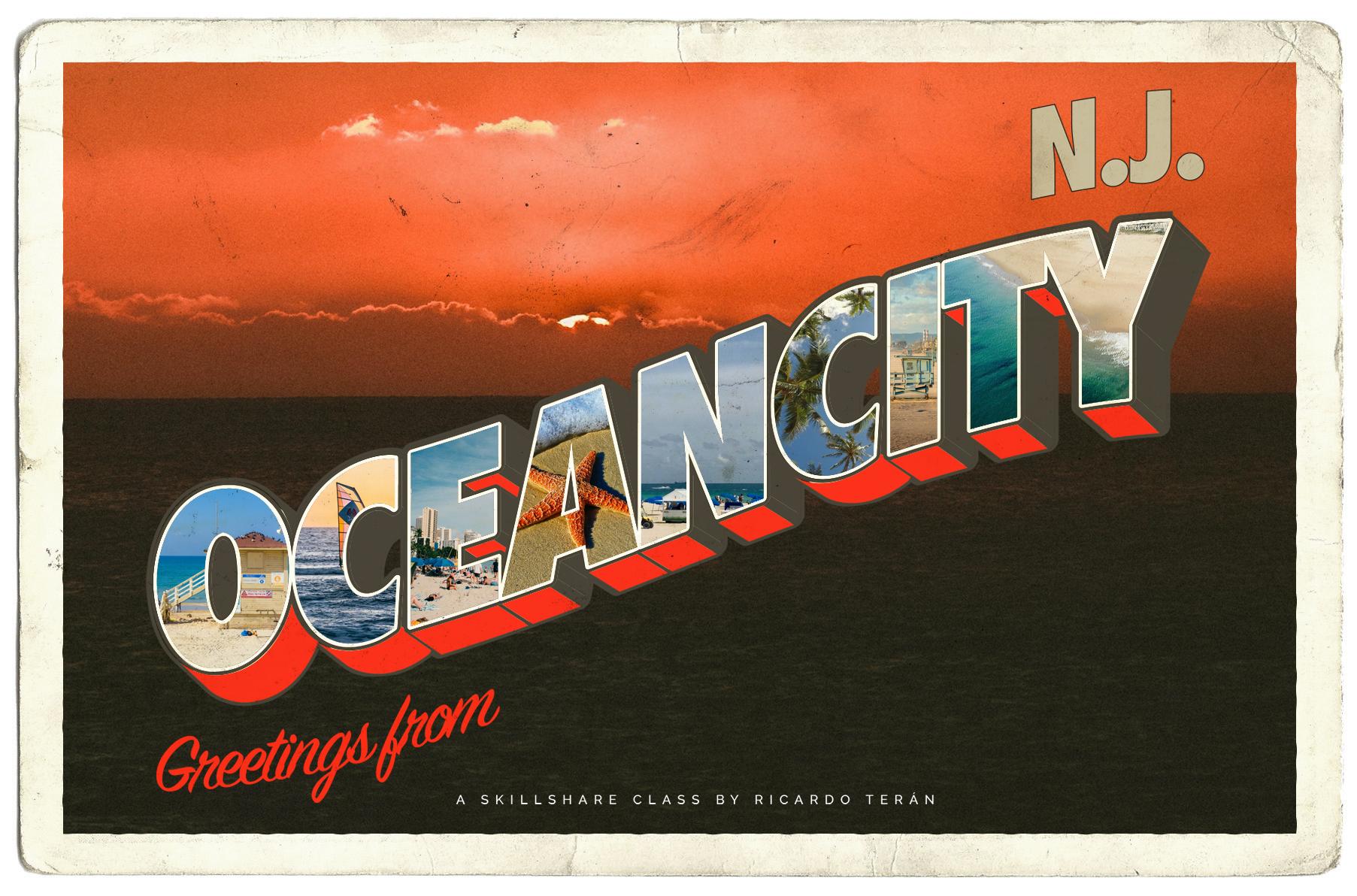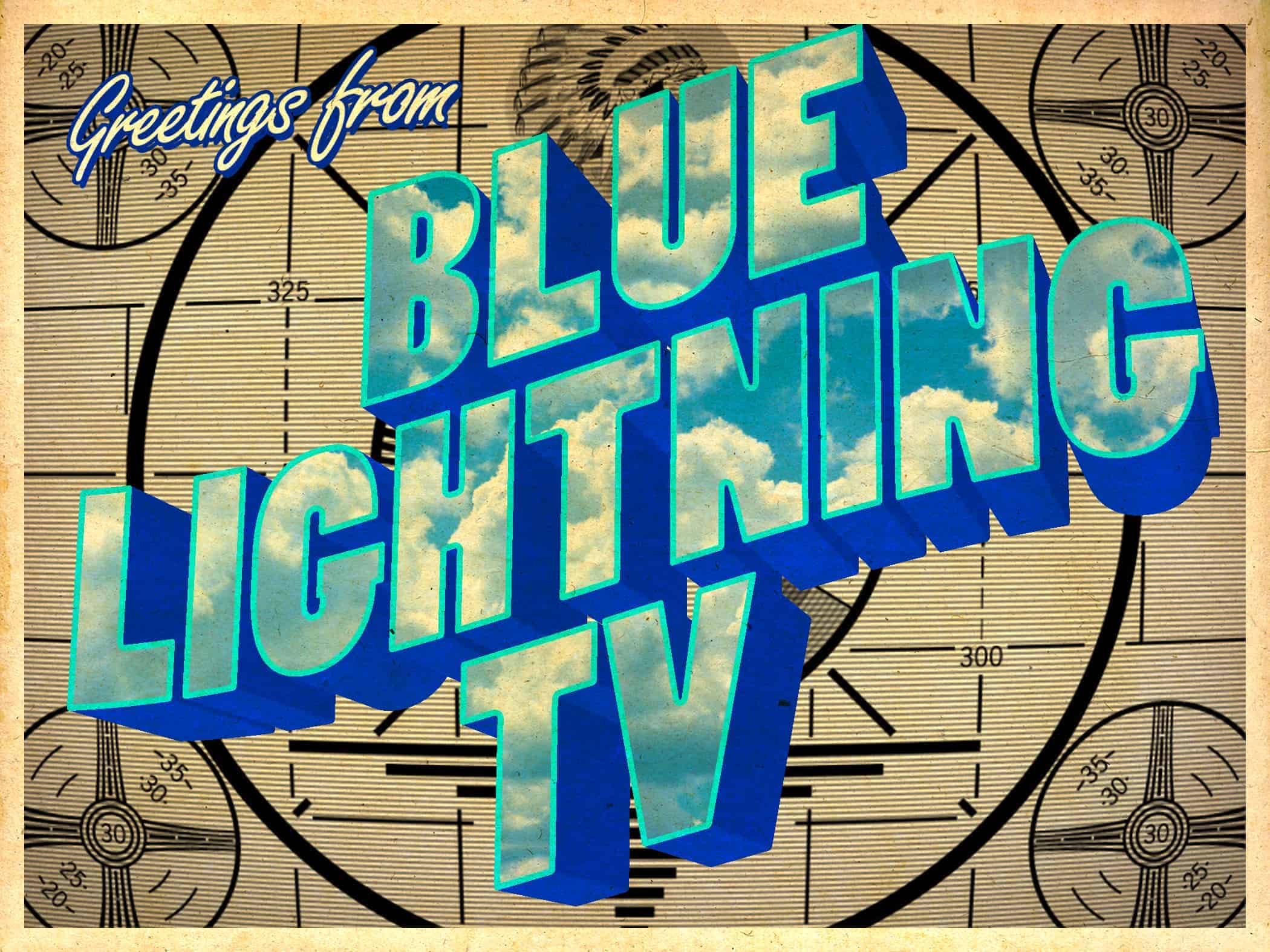
Vintage Postcard Font Photoshop
Vintage Postcard Font Photoshop. Continue reading photoshop tutorial // patterned text Choose among the handwritten postcards or blank postcards for using in.
Now let’s learn how to design a postcard. In this handwritten vintage sign font, each character is uniquely designed with different levels of noise for added texture. You may be interested in.
This tutorial will show you can add a pattern to a font! Looking at them will make us feel wistful. A vintage postcard font inspired by retro posters, this typeface features six different weights along with four different styles.
Use the object > path > offset path menu again to add another enlarged 2px outline. Once you have selected your preferred style, highlight horizontal then bend it up to 12%. You may be interested in.